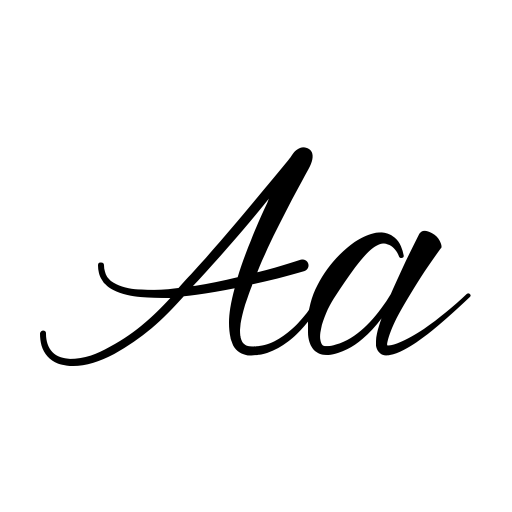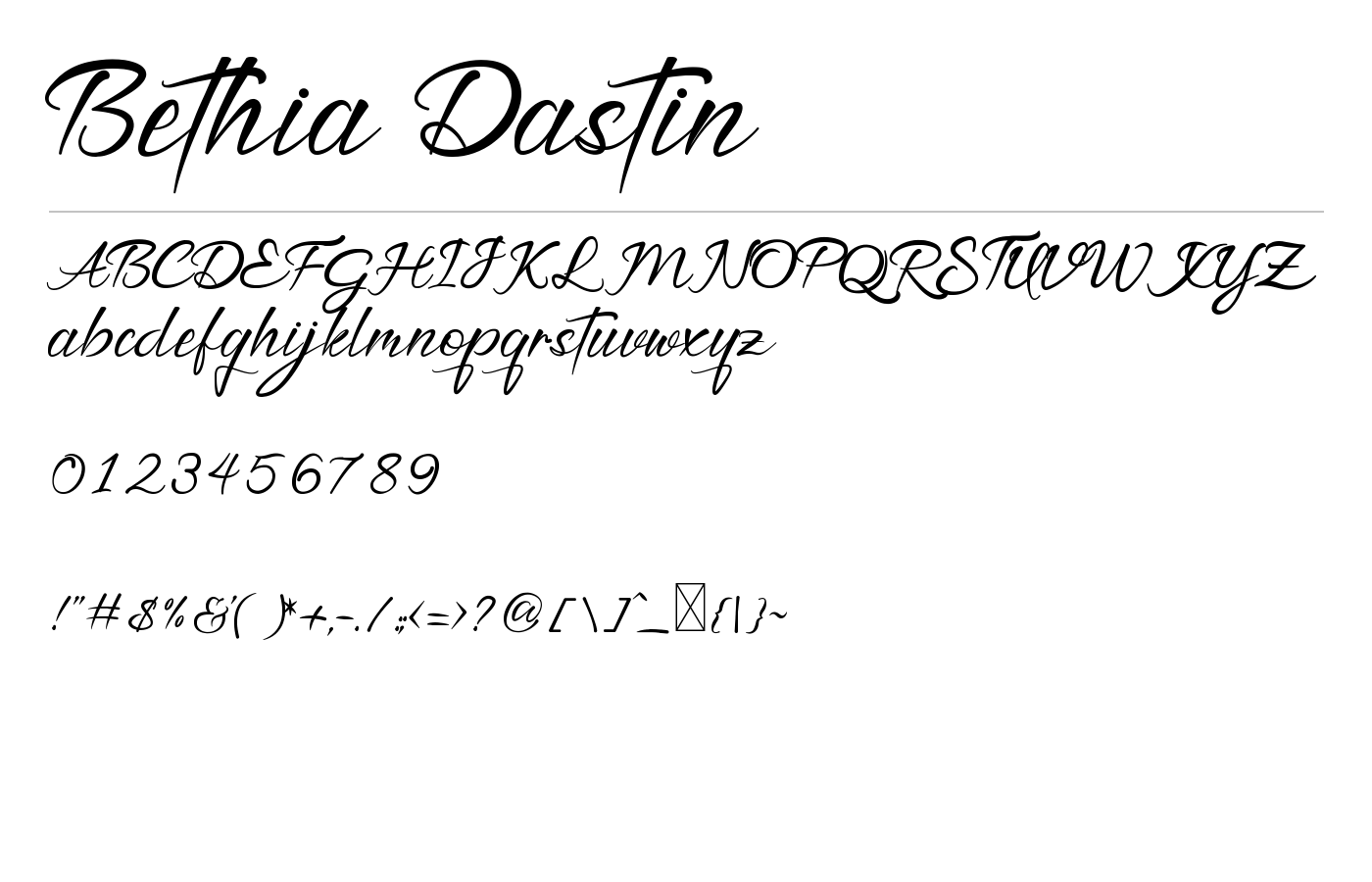
Bethia Dastin is an elegant script font characterized by its delicate, flowing strokes and refined, handwritten appearance. With a graceful slant and smooth, calligraphic lines, it conveys a sophisticated and personal touch, making it ideal for wedding invitations, branding, and stylish editorial projects where a sense of charm and luxury is desired. Its fine details and legible forms offer a perfect balance between decorative flair and readability, enhancing any design that calls for a touch of elegance and warmth.
Bethia Dastin Font
About Bethia Dastin Font
| Font family | Bethia Dastin Font |
| Designer | Ronny Rizki Jaya |